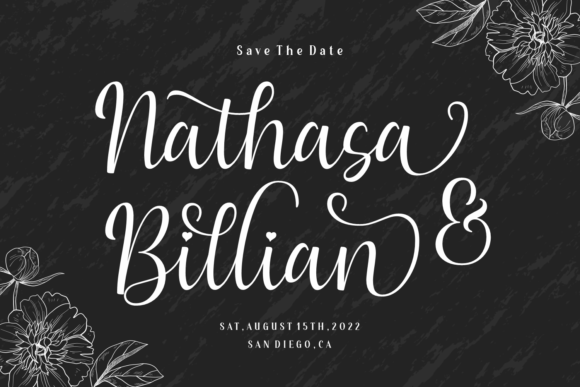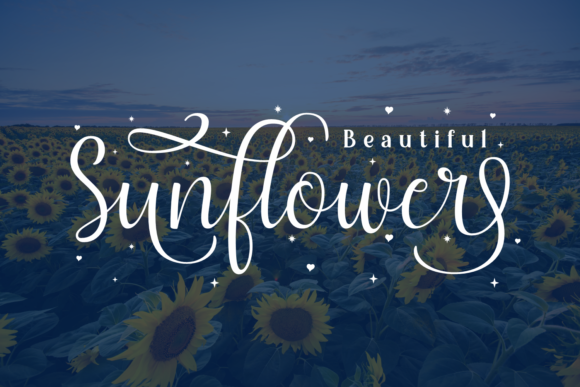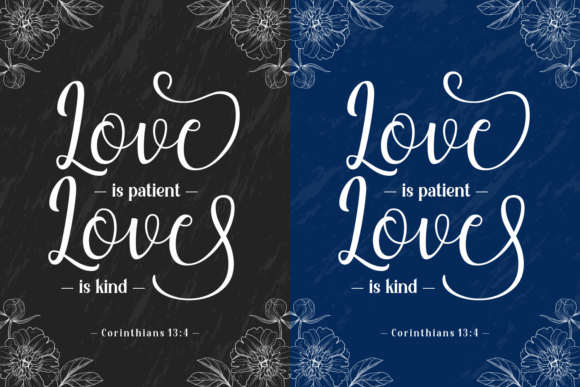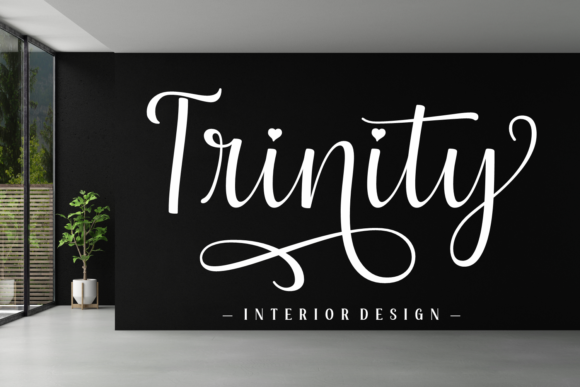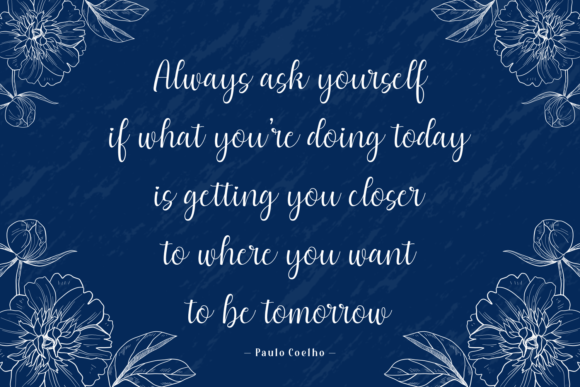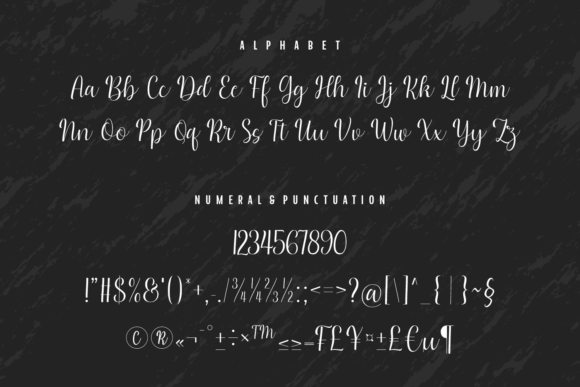
Discover the Charm of Crysthel Font: A Timeless Handwritten Delight
Are you a designer or crafter looking for a font that exudes elegance and sophistication? Look no further than Crysthel Font, a lovely and timeless handwritten font that’s perfect for creating eye-catching logos, branding, and quotes. In this article, we’ll dive into the world of Crysthel Font and explore its features, benefits, and uses.
What is Crysthel Font?
Crysthel Font is a beautifully crafted handwritten font that’s designed to add a touch of personality and charm to your designs. Its timeless appeal makes it an excellent choice for a wide range of projects, from logos and branding to quotes and social media graphics. With its elegant and flowing script, Crysthel Font is sure to capture the attention of your audience and leave a lasting impression.
Key Features of Crysthel Font
So, what makes Crysthel Font so special? Here are some of its key features:
- Lovely and Timeless Design: Crysthel Font boasts a classic and elegant design that’s perfect for creating sophisticated and eye-catching graphics.
- PUA Encoded: Crysthel Font is PUA (Private Use Area) encoded, which means you can access all of the glyphs and swashes with ease. This makes it easy to customize and adapt the font to your specific needs.
- Handwritten Style: Crysthel Font has a beautiful handwritten style that’s perfect for adding a personal touch to your designs.
Benefits of Using Crysthel Font
So, why should you choose Crysthel Font for your next project? Here are some of the benefits of using this amazing font:
- Easily Readable: Crysthel Font is clear and easy to read, making it perfect for body text and headlines.
- Highly Versatile: Crysthel Font can be used for a wide range of projects, from logos and branding to quotes and social media graphics.
- Customizable: With its PUA encoding, Crysthel Font is highly customizable, allowing you to access a wide range of glyphs and swashes to create unique and personalized designs.
Uses of Crysthel Font
So, what can you create with Crysthel Font? Here are some ideas to get you started:
- Logos and Branding: Crysthel Font is perfect for creating eye-catching logos and branding materials that exude elegance and sophistication.
- Quotes and Social Media Graphics: Add a touch of personality and charm to your quotes and social media graphics with Crysthel Font.
- Invitations and Stationery: Crysthel Font is a great choice for creating beautiful invitations, stationery, and other paper goods.
Tips for Using Crysthel Font
Here are some tips for getting the most out of Crysthel Font:
- Experiment with Different Sizes and Colors: Crysthel Font looks great in a variety of sizes and colors, so don’t be afraid to experiment and find the perfect combination for your design.
- Pair with Other Fonts: Crysthel Font pairs well with a range of other fonts, so try combining it with different fonts to create unique and interesting effects.
- Use the Swashes and Glyphs: Take advantage of Crysthel Font’s PUA encoding and use the swashes and glyphs to add a touch of personality and flair to your designs.
In conclusion, Crysthel Font is a lovely and timeless handwritten font that’s perfect for designers and crafters looking to add a touch of elegance and sophistication to their designs. With its PUA encoding, beautiful design, and highly versatile nature, Crysthel Font is an excellent choice for a wide range of projects. So why not give it a try and see what amazing creations you can come up with?